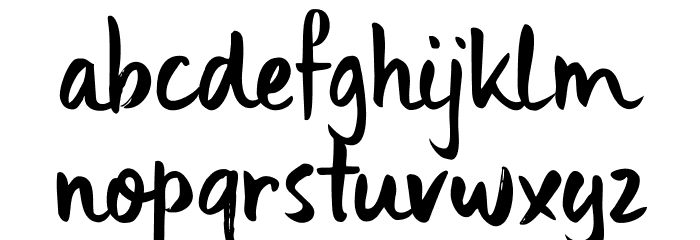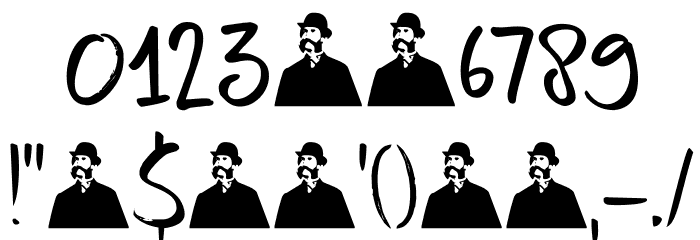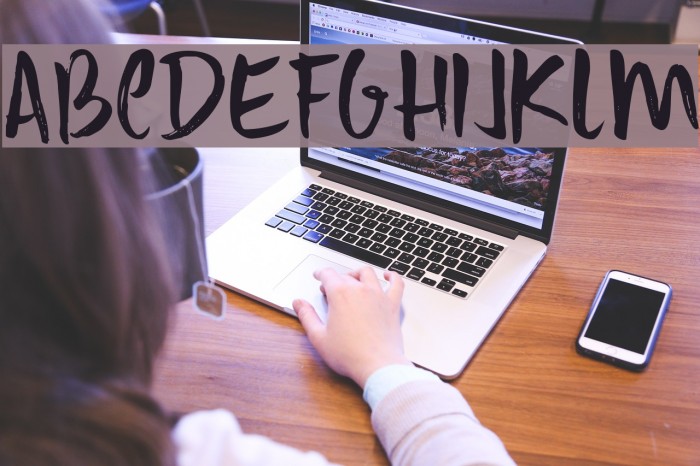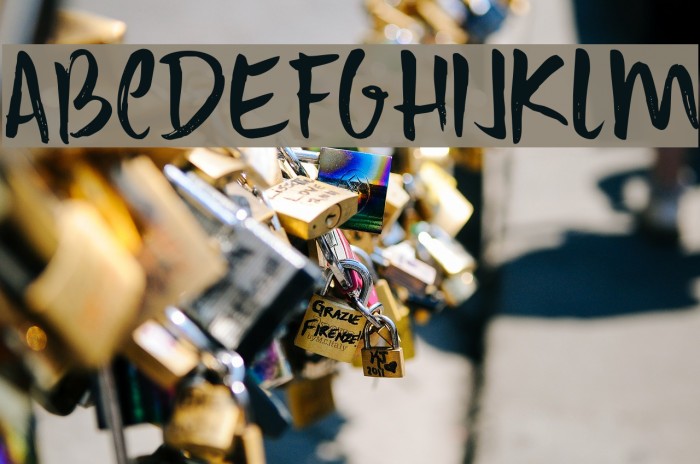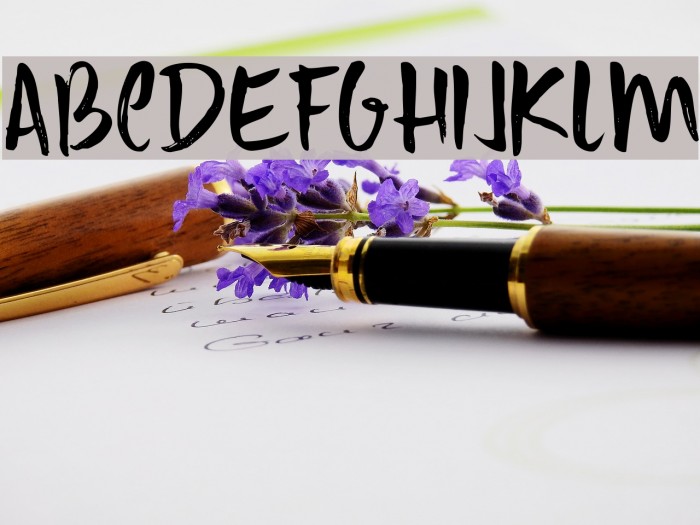
DK Uncle Edward Regular Font
This font features a bold and expressive handwritten style, characterized by its brush-like strokes and dynamic flow. The uppercase letters are tall and slightly irregular, giving a sense of spontaneity and energy. The lowercase letters maintain a consistent style, with a playful and casual appearance. Numbers are clear and follow the same handwritten aesthetic. Special characters are creatively integrated, adding to the font's unique personality. Overall, this font exudes a lively and artistic vibe, making it suitable for projects that require a personal touch.
A bold, expressive handwritten font with a brush-like style.
- Proposed Projects: Ideal for creative projects such as posters, invitations, branding, and social media graphics where a personal and artistic touch is desired.